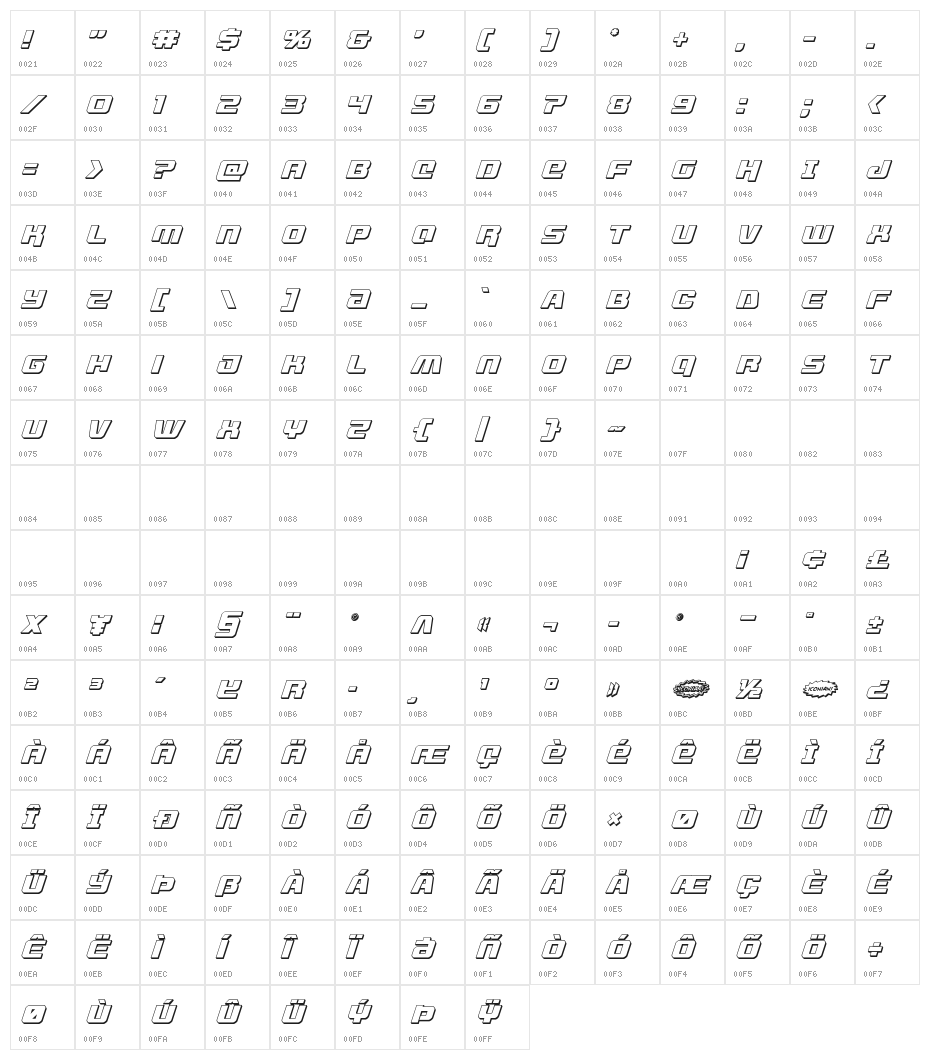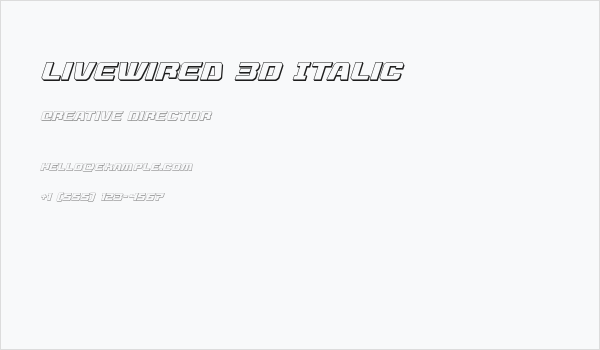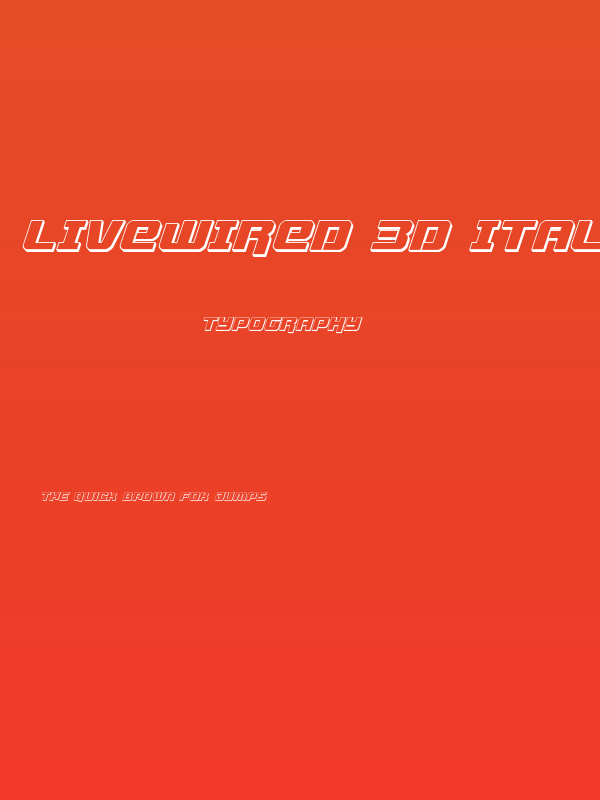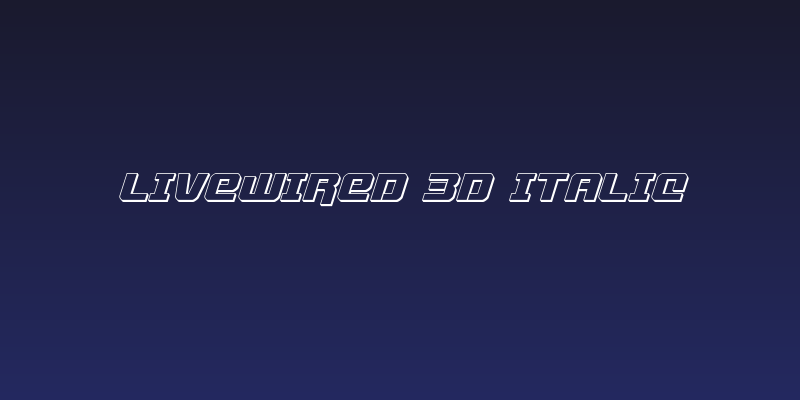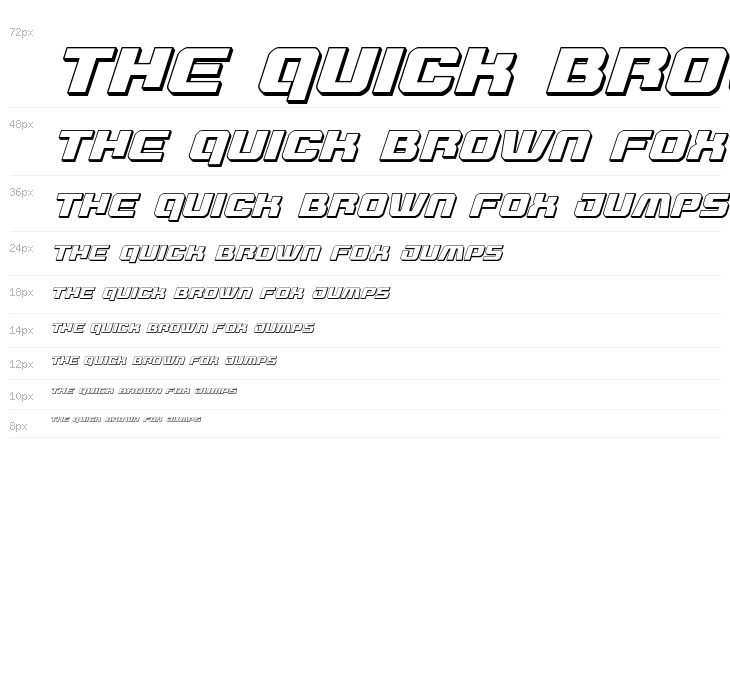
Livewired 3D Italic Font
Livewired 3D Italic Description
This font features a bold, three-dimensional design with a distinct italic slant, giving it a dynamic and futuristic appearance. The characters are outlined, creating a hollow effect that enhances the 3D illusion. Each letter and number is crafted with sharp angles and clean lines, contributing to a modern and edgy aesthetic. The spacing between characters is consistent, ensuring readability while maintaining the font's unique style. This font is ideal for projects that require a strong visual impact, such as technology-themed designs, video game titles, or sci-fi movie posters. Its bold presence and innovative design make it a standout choice for creative applications.
| Proposed Projects | Ideal for technology-themed designs, video game titles, sci-fi movie posters, and creative branding. |